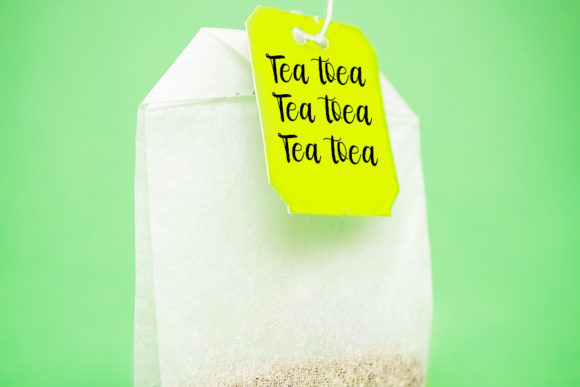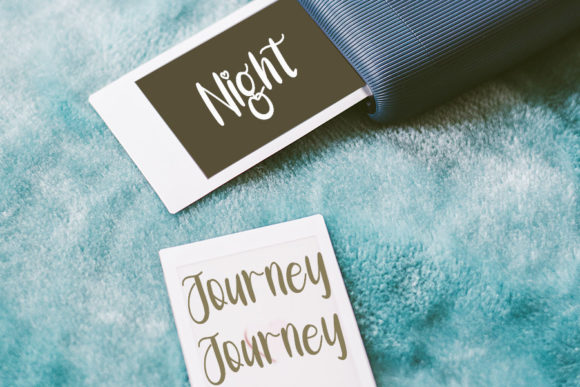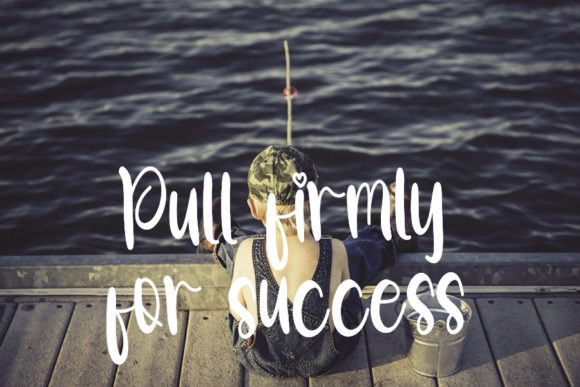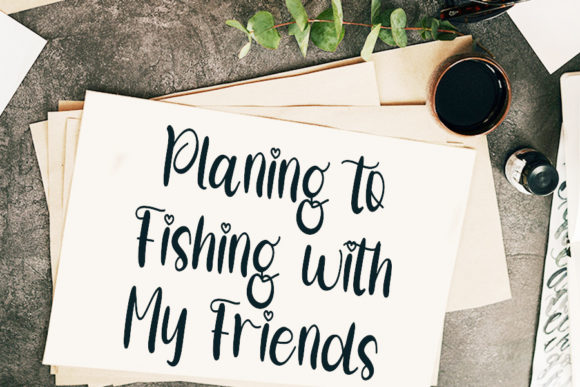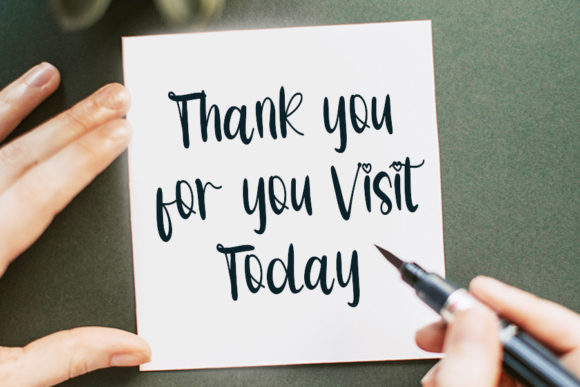
The Catch: Elevating Designs with Fishing Font
I’ll never forget the design project that led me to discover Fishing Font. I was working on a luxury branding campaign for a high-end outdoor gear company, and I needed a font that would evoke the elegance and sophistication of their premium products. As I scrolled through font after font, nothing seemed quite right – until I stumbled upon Fishing Font. Its flowing, thin script letters danced along the baseline, radiating a sense of refinement and poise that perfectly captured the brand’s essence.
- 💫 Elegant and sophisticated: Fishing Font adds a touch of luxury to any design project.
- ✅ Highly legible: Despite its thin lines, the font remains clear and easy to read.
- 💥 Versatile: Suitable for a wide range of design applications, from branding and advertising to packaging and stationery.
- ⚠️ Limited use in body text: Due to its thin lines, Fishing Font may not be the best choice for lengthy paragraphs.
- ⚠️ May not be suitable for small sizes: The font’s delicate features may become lost at very small sizes.
The Story Behind Fishing Font: Designer Inspiration
Fishing Font was designed with the intention of capturing the fluid, organic feel of handwriting. The designer, inspired by the flowing lines of nature, aimed to create a font that would evoke a sense of luxury and sophistication. Through careful attention to detail and a passion for typography, Fishing Font was born – a font that would add a touch of elegance to any design project.
Q: What is Fishing Font best suited for?
A: Fishing Font is ideal for luxury branding, advertising, packaging, and stationery projects.
Q: Can I use Fishing Font for body text?
A: While Fishing Font is highly legible, its thin lines may not make it the best choice for lengthy paragraphs. It’s best used for headlines, titles, and short blocks of text.
Q: Does Fishing Font support OpenType features?
A: Yes, Fishing Font supports OpenType features, including ligatures and stylistic alternates.